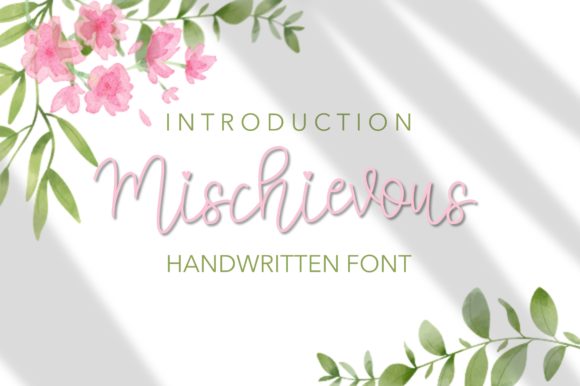
Behold the beauty of Mischievous Font, a mesmerizing script font that evokes a sense of playfulness and charm. Its enchanting curves and delightful flourishes will add a touch of whimsy and elegance to all your creative endeavors.
Immerse yourself in the world of Mischievous Font, a beautifully handwritten font that captures the essence of a child's imagination. Its delicate lines and playful characters will bring joy and excitement to your designs, making them truly unforgettable.
With Mischievous Font, you can create stunning wedding invitations that reflect the unique bond between two souls. Its graceful script will add a touch of romance and sentimentality to your special day, making your invitations cherished keepsakes for years to come.
Elevate your greeting cards to new heights with Mischievous Font. Its charming personality will add a personal touch to your messages, making them stand out from the ordinary. Whether it's a heartfelt birthday wish or a simple note of gratitude, your words will shine with warmth and sincerity.
Unleash your creativity with Mischievous Font, the perfect choice for adding a touch of magic to your logos and branding. Its distinct style will make your business stand out from the competition, creating a strong and memorable impression that will leave a lasting impact on your customers.
Step into a world of limitless possibilities with Mischievous Font. Its versatility knows no bounds, making it ideal for a wide range of design projects. From enchanting wedding invitations to playful greeting cards, from eye-catching logos to heartfelt thank-you notes, Mischievous Font will transform your words into works of art.